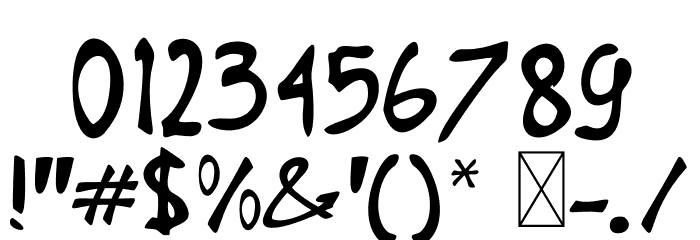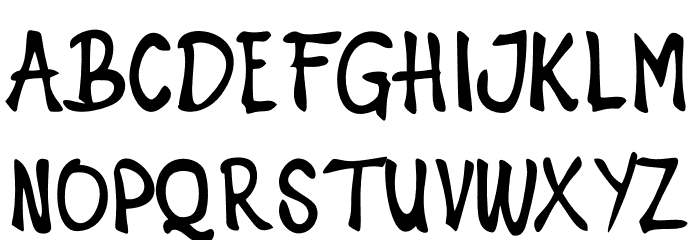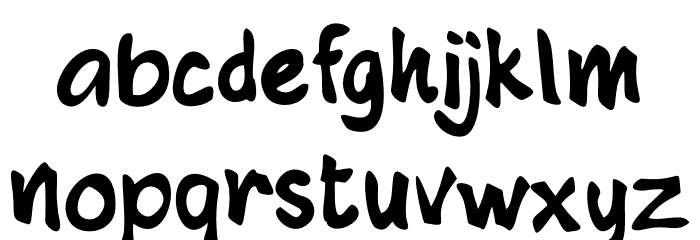
Greattool Font
Greattool Description
This font features a playful and dynamic handwritten style, characterized by its bold and slightly irregular letterforms. The uppercase and lowercase letters exhibit a casual, free-flowing aesthetic, with varying stroke thickness that adds a lively and energetic feel. The numbers and special characters maintain this whimsical style, making the font suitable for creative and informal applications. Its unique appearance is both eye-catching and approachable, ideal for projects that require a personal touch.
| Proposed Projects | Ideal for children's books, greeting cards, playful branding, and creative posters. |